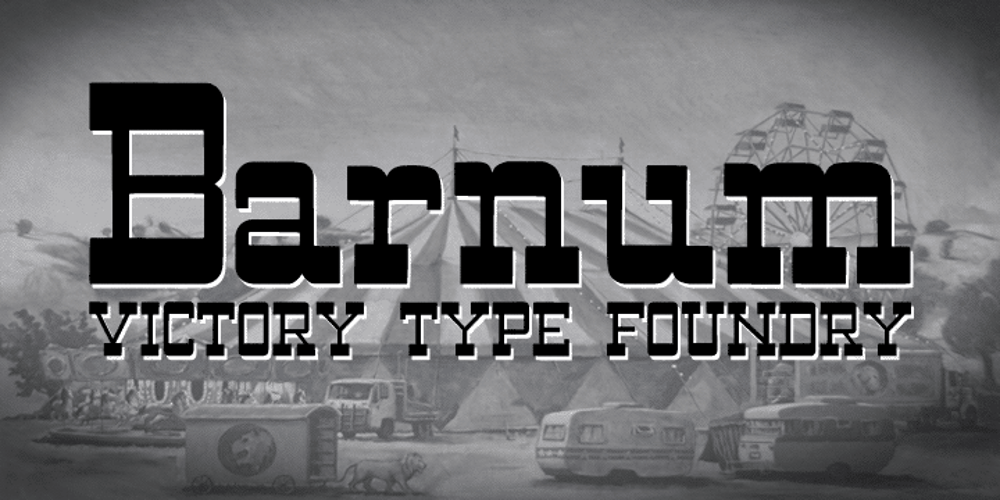
Barnum Font Family was designed by Noah Rothschild and published by Victory Type. Barnum contains 1 styles and family package options. Victory Type is proud to present the release of another classic American typeface. Originally a wood-type, Barnum evokes circus wagons and wanted posters from the wild west. Rugged, rustic, old-fashioned and full of character, Barnum is a charming blast from the past and great for headlines and signage. This chunky slab-serif alphabet was digitized and expanded to include full punctuation and European characters by Noah Rothschild.